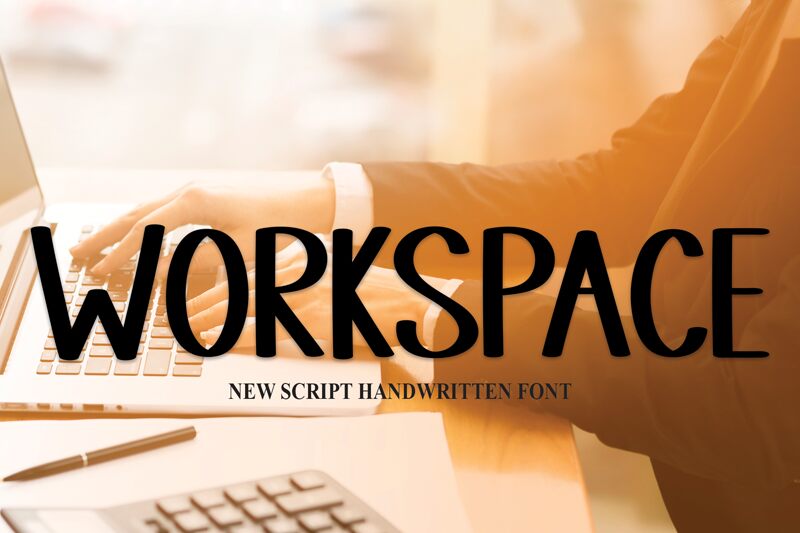
WORKSPACE
Workspace, a captivating handwritten font by Scratchones, is the perfect choice for projects that aim to evoke creativity and innovation.
With its condensed width and allcaps design, this font adds a touch of sophistication to logos, branding materials, and packaging. Its unique style effortlessly captures attention and brings an artistic flair to websites, blog headers, and social media graphics. Bring your ideas to life with Workspace and let its distinctive charm inspire your audience in various domains such as fashion, photography, interior design, or even culinary ventures.